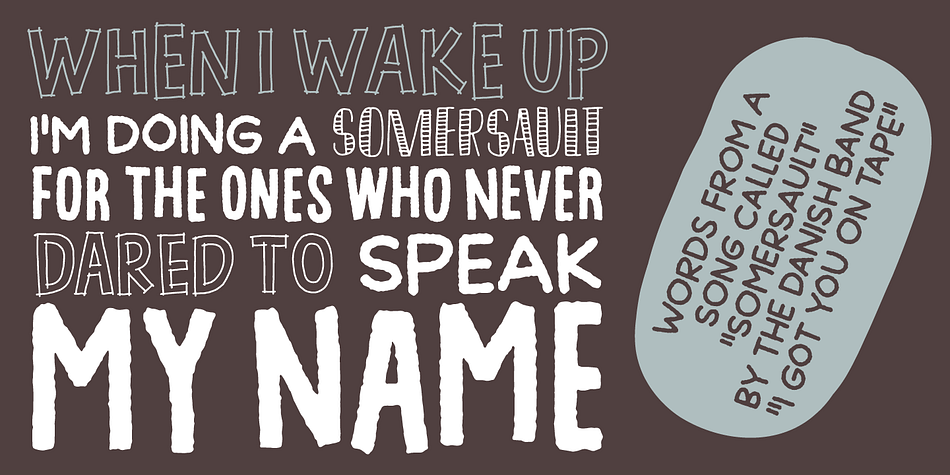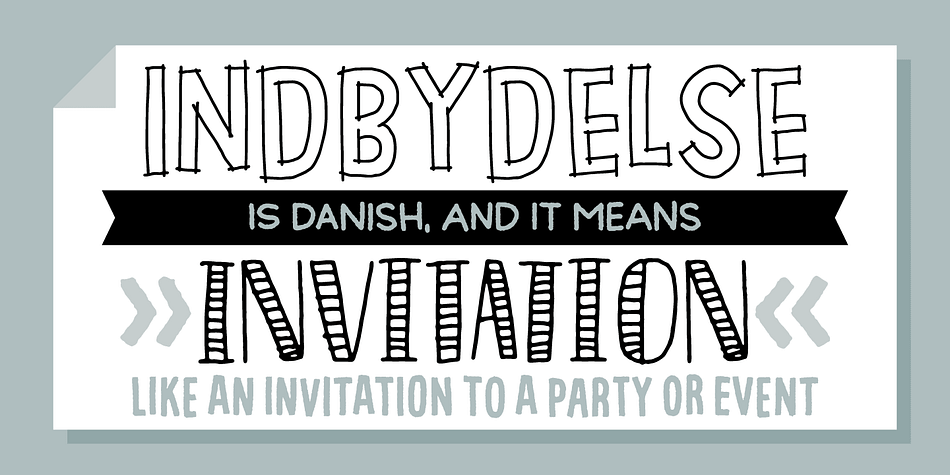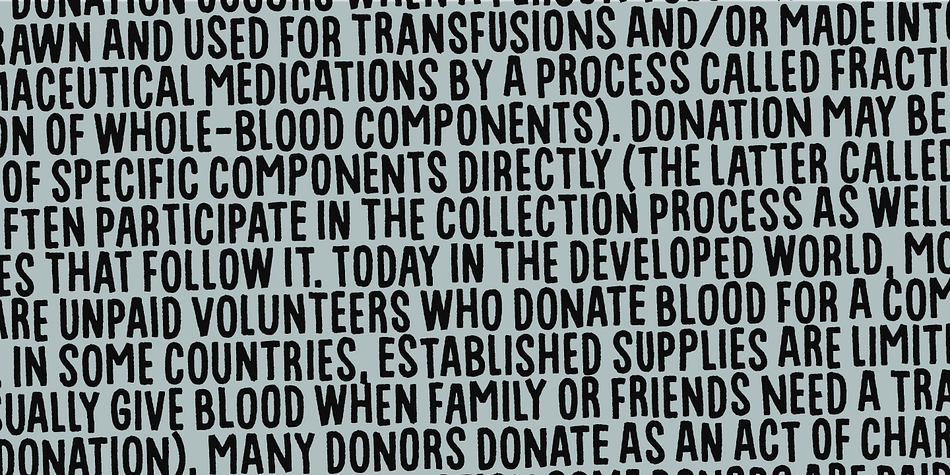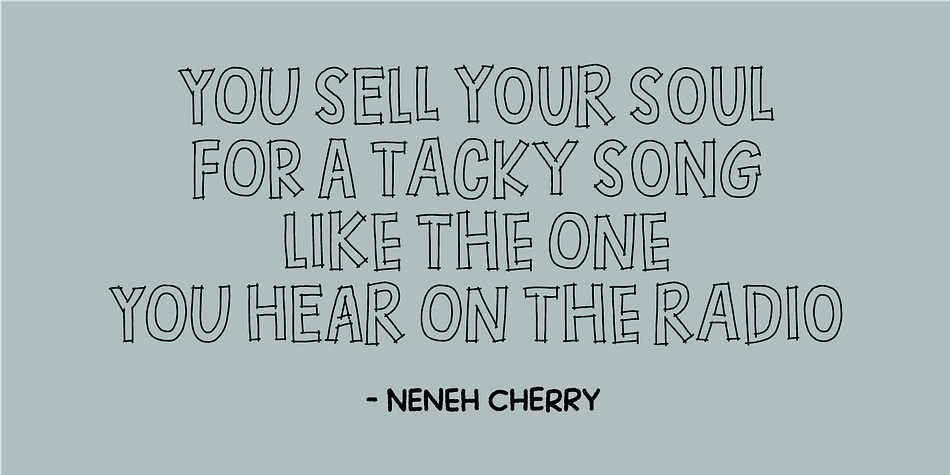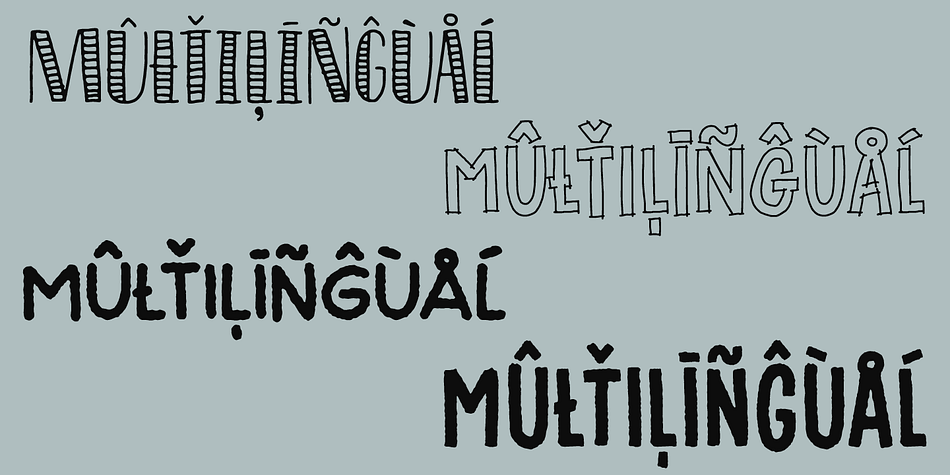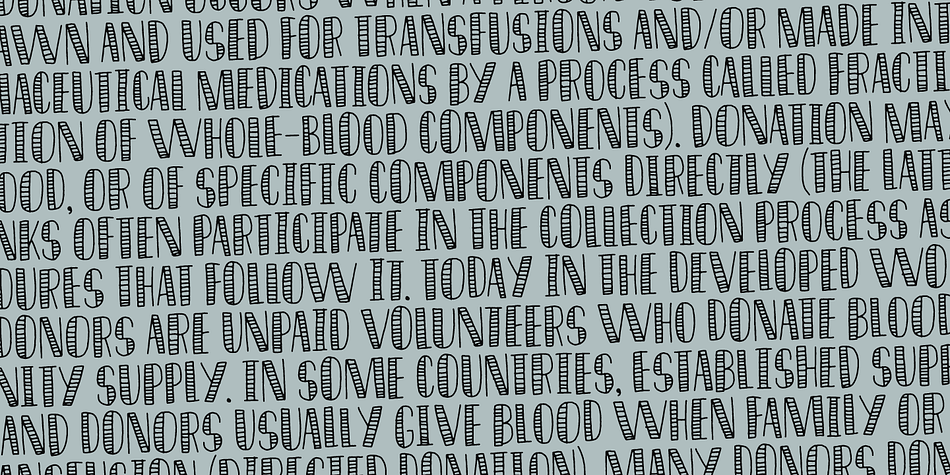
Designed by Jakob Fischer, Indbydelse is a comic, display and hand display font family. This typeface has four styles and was published by Pizzadude.dk.
I would like to invite you to a party, wedding, birthday, event, gameshow, baby shower, housewarming ... ehh, what I mean is: this is an invitation to (almost) anything!
As you may have read, “Indbydelse” is danish and means “invitation” - why? Well, because these four fonts have enough power to create an exciting invitation! Use them as single fonts, combine one, two, three or all four - that’s totally up to you!
They have all got multilingual support as well as contextual alternates with several different versions of each letter!